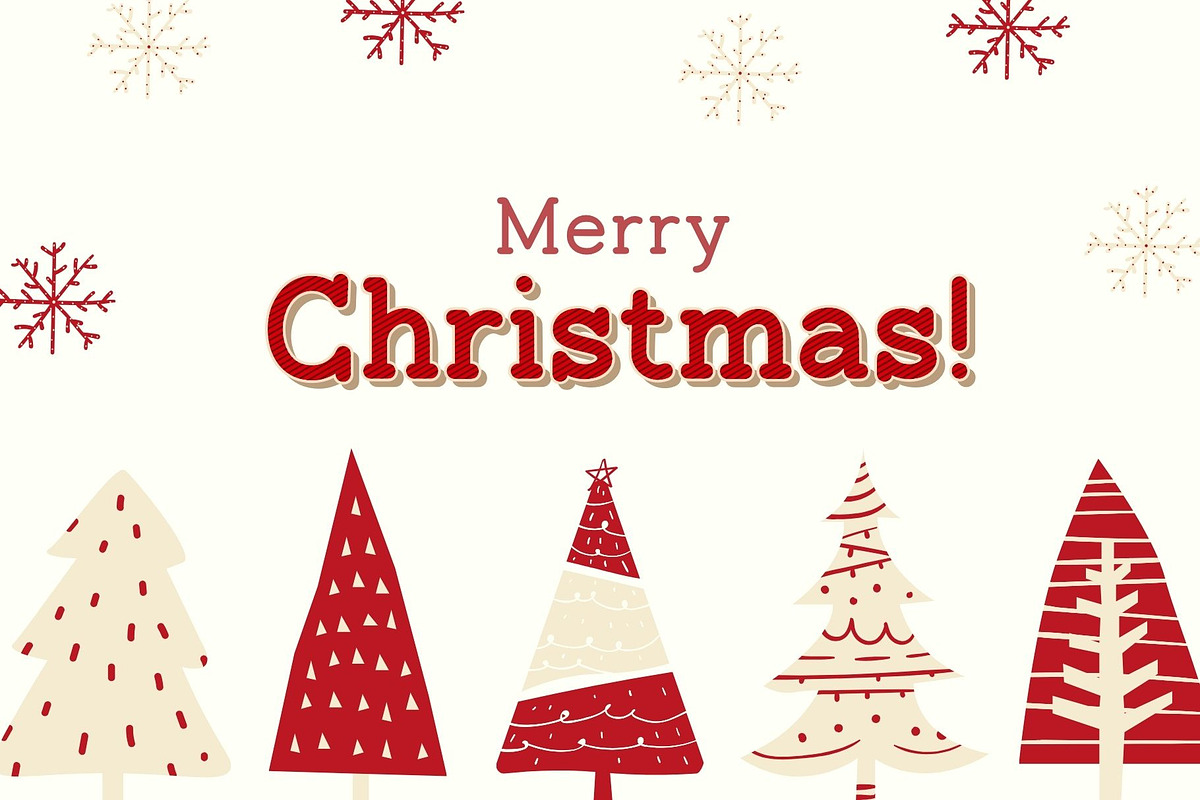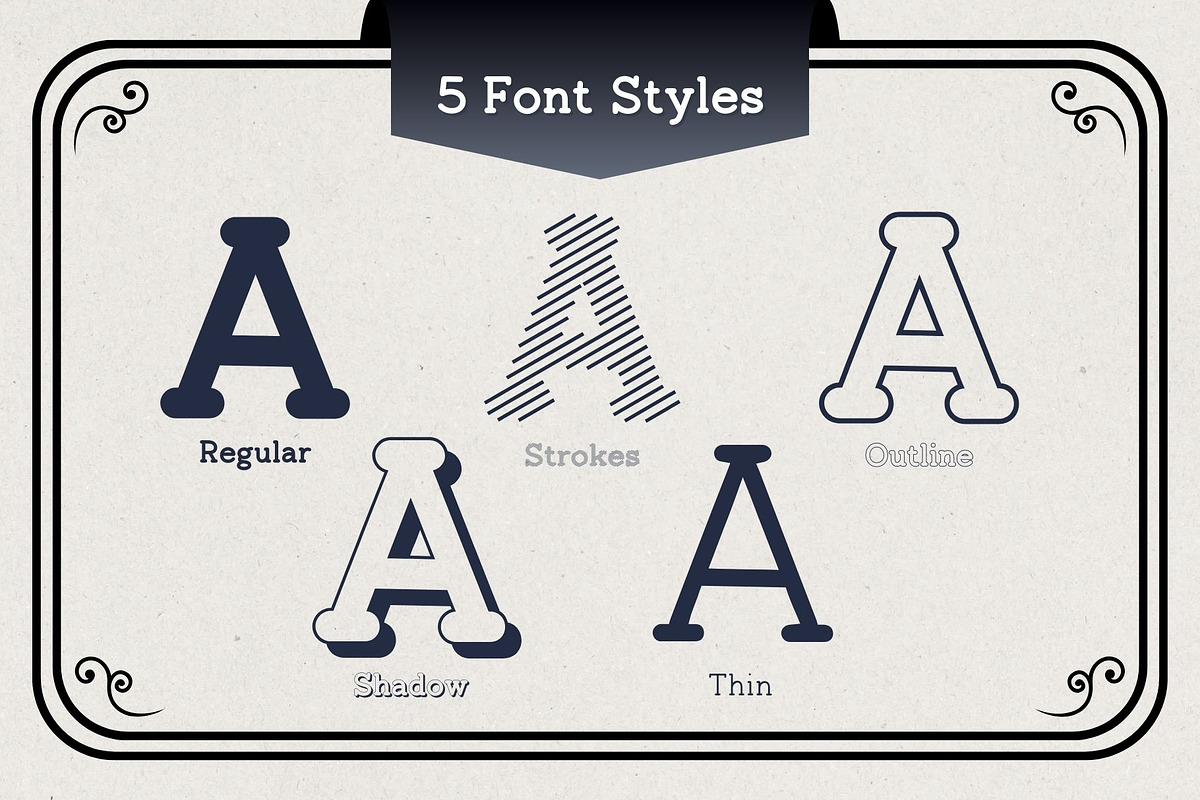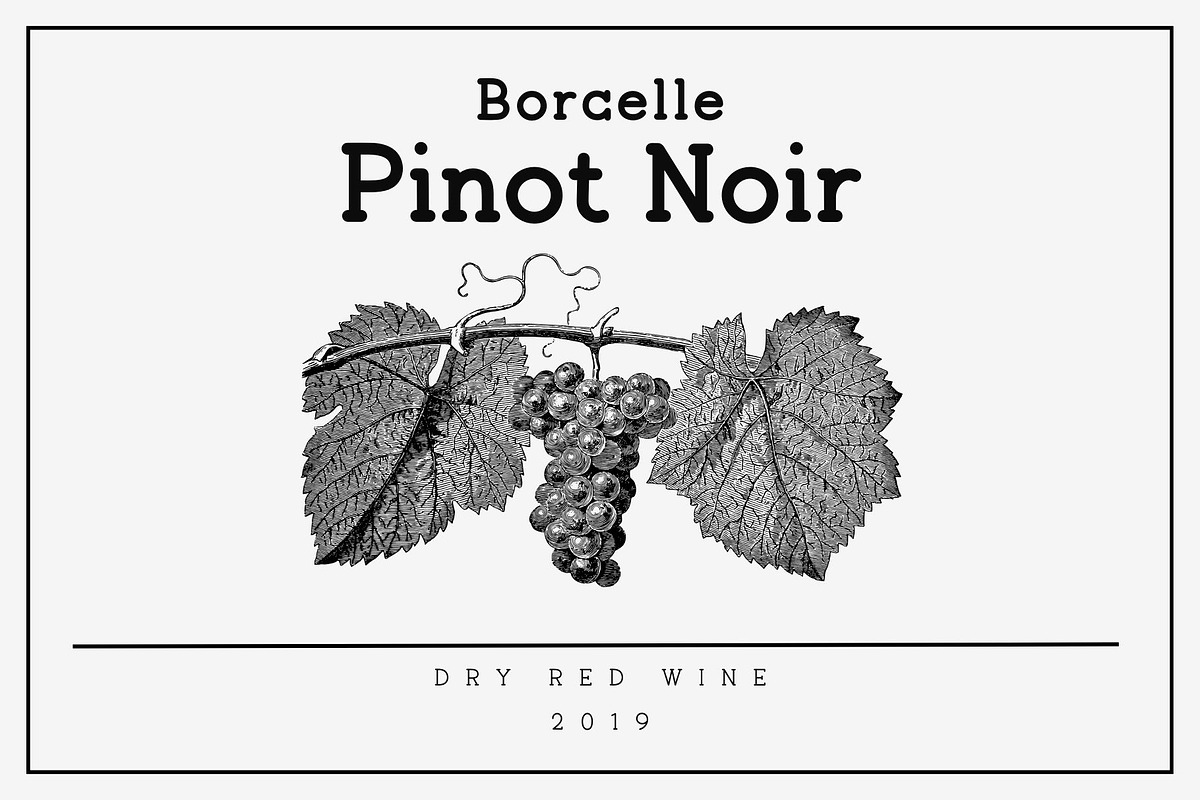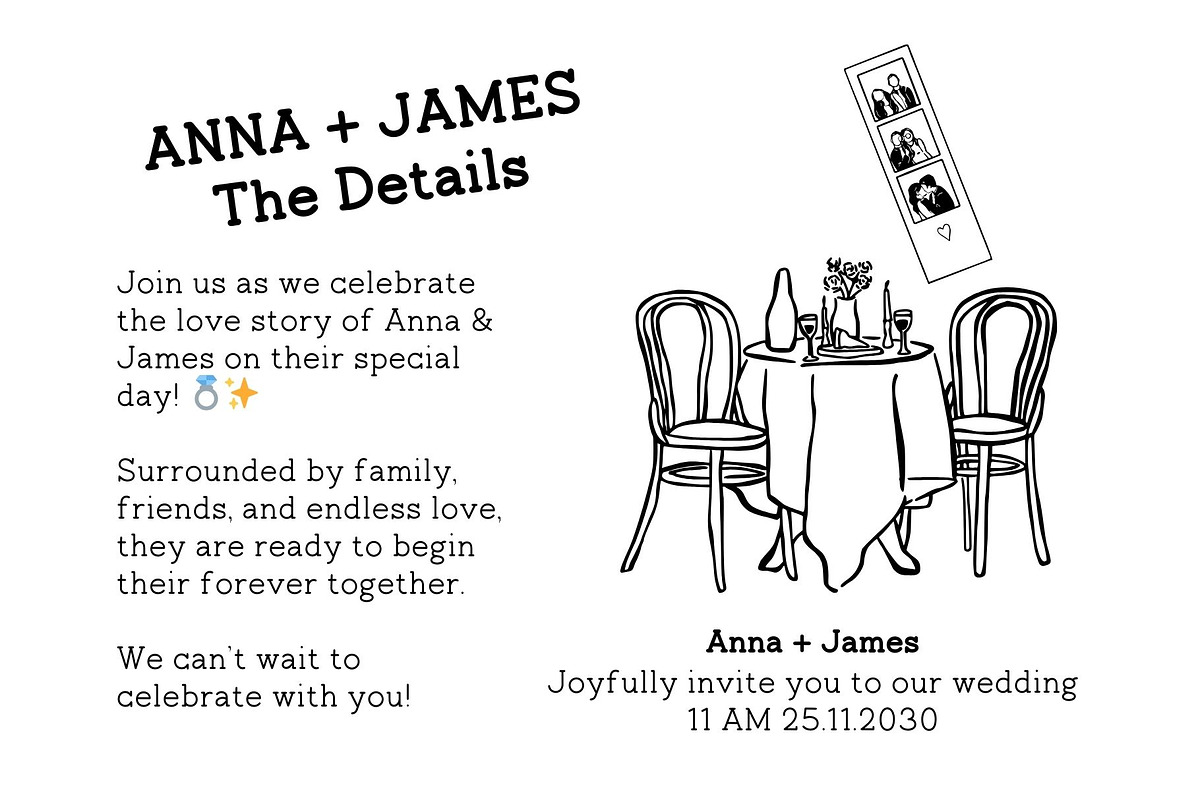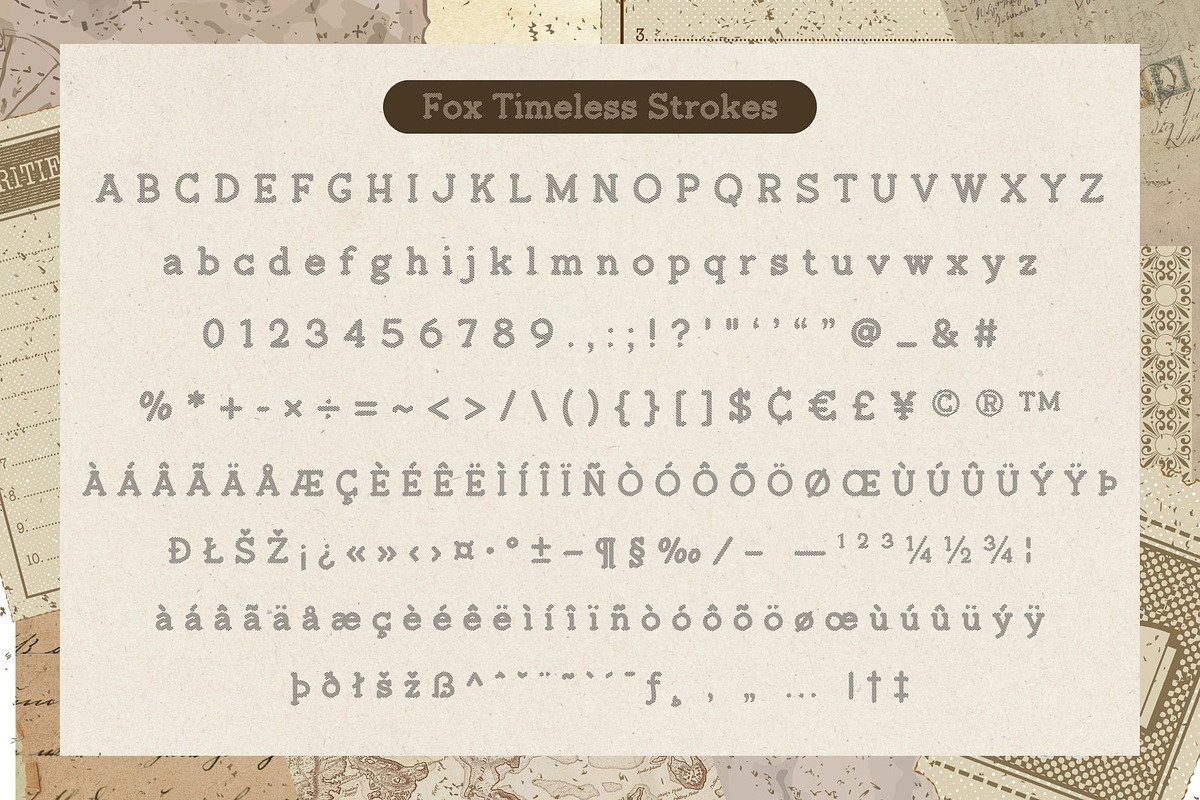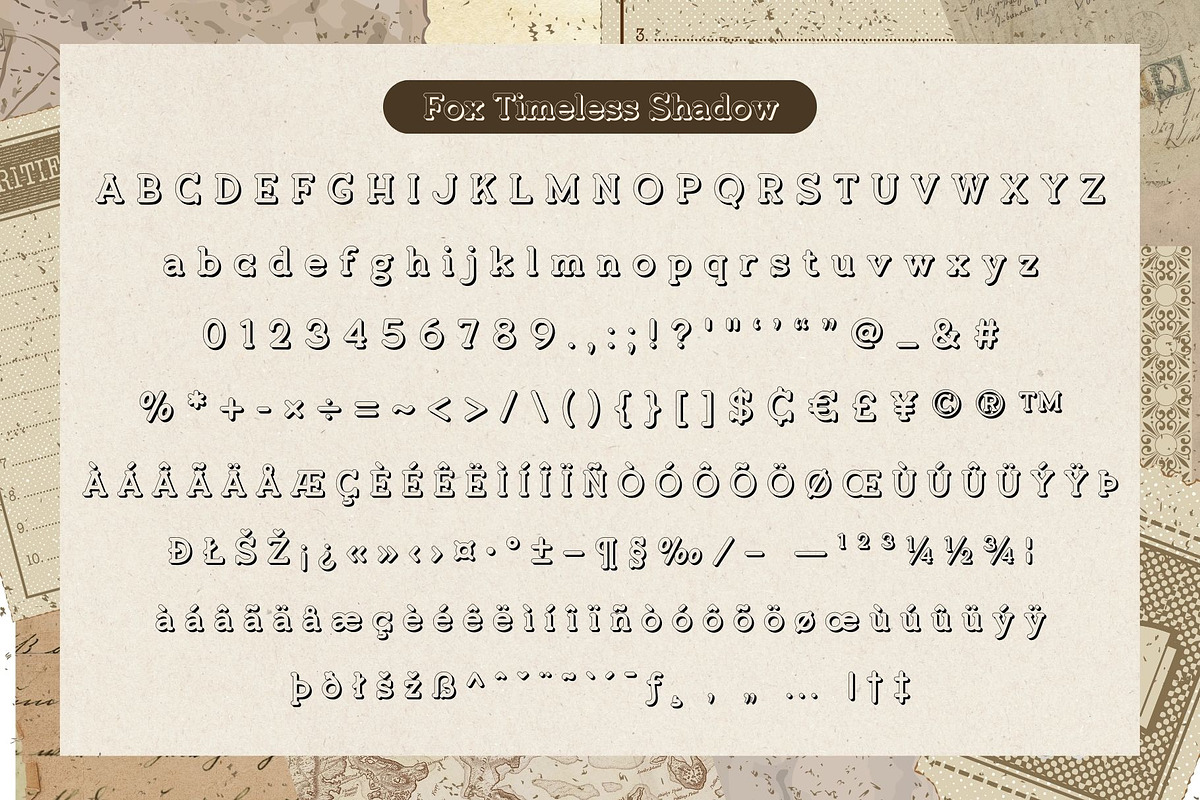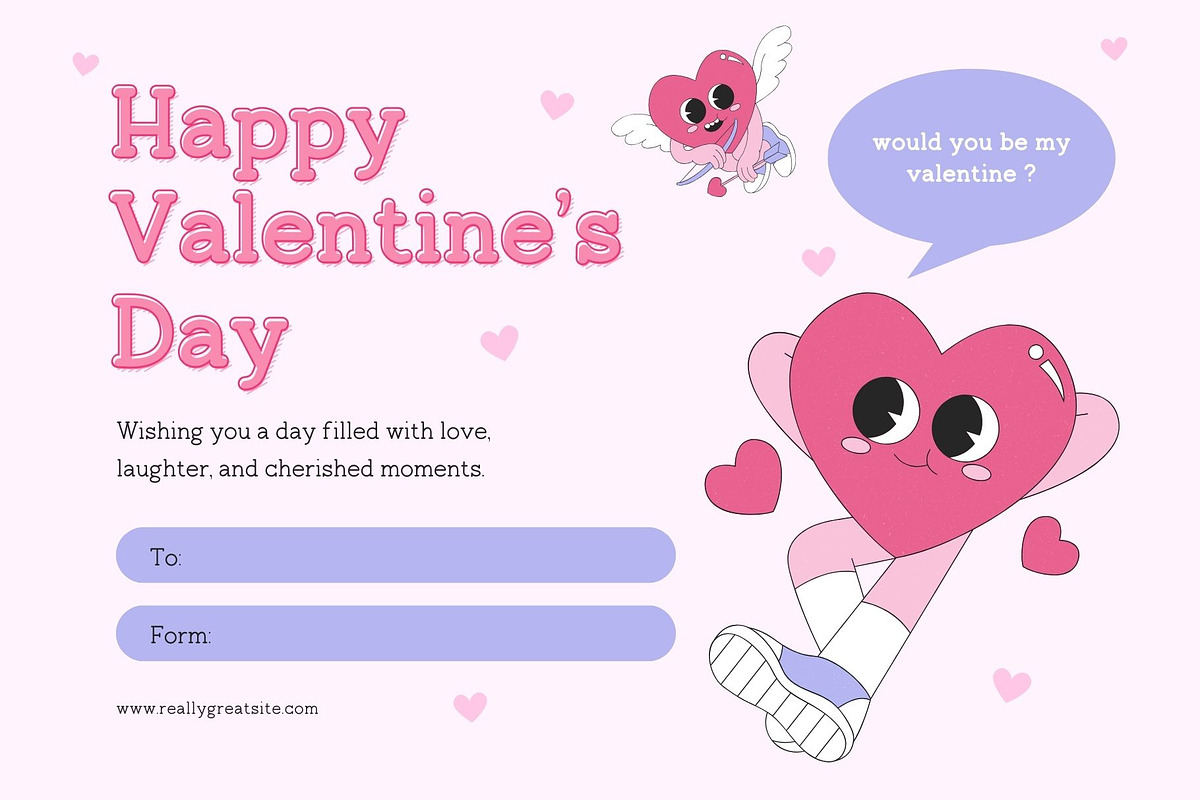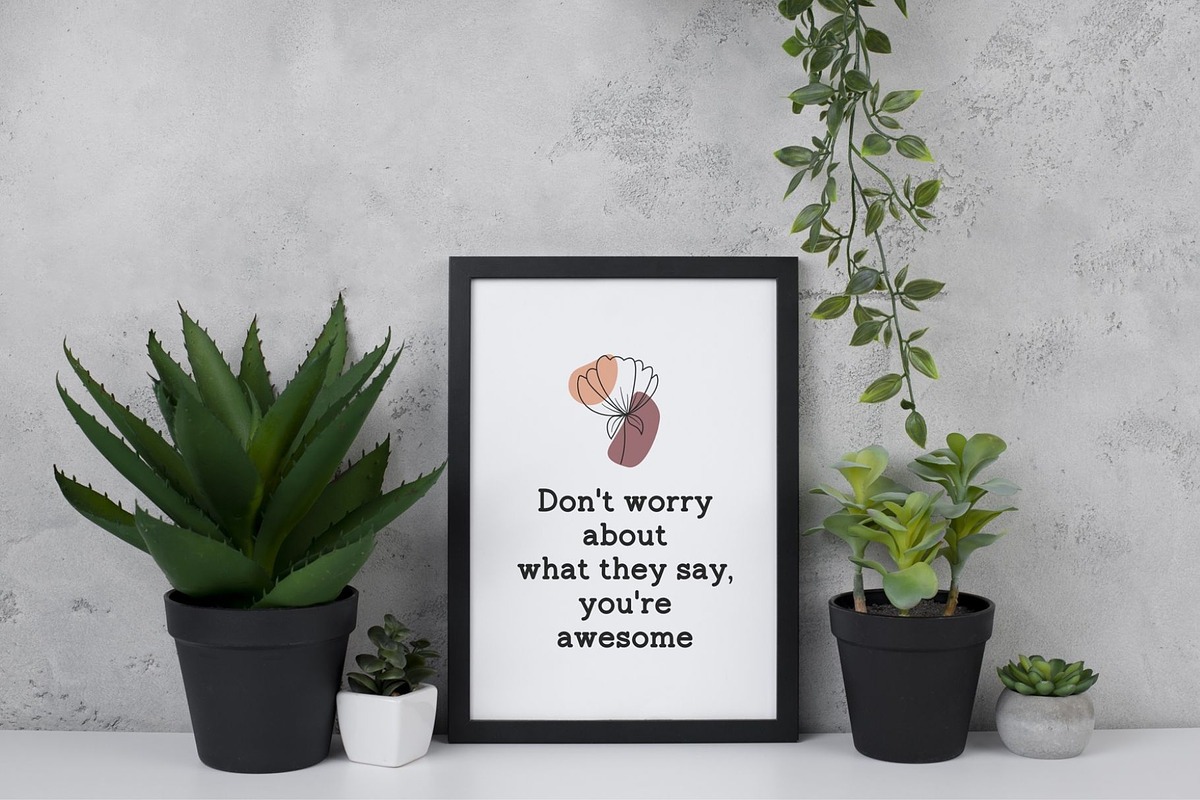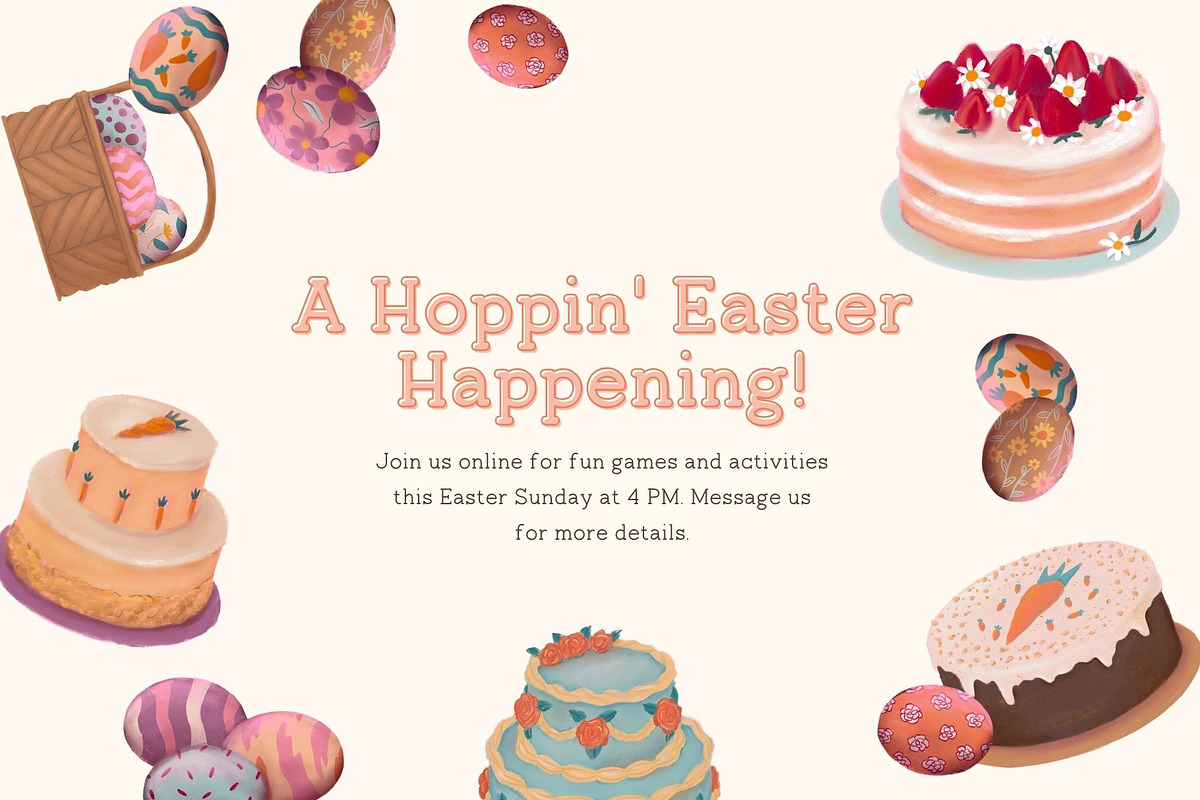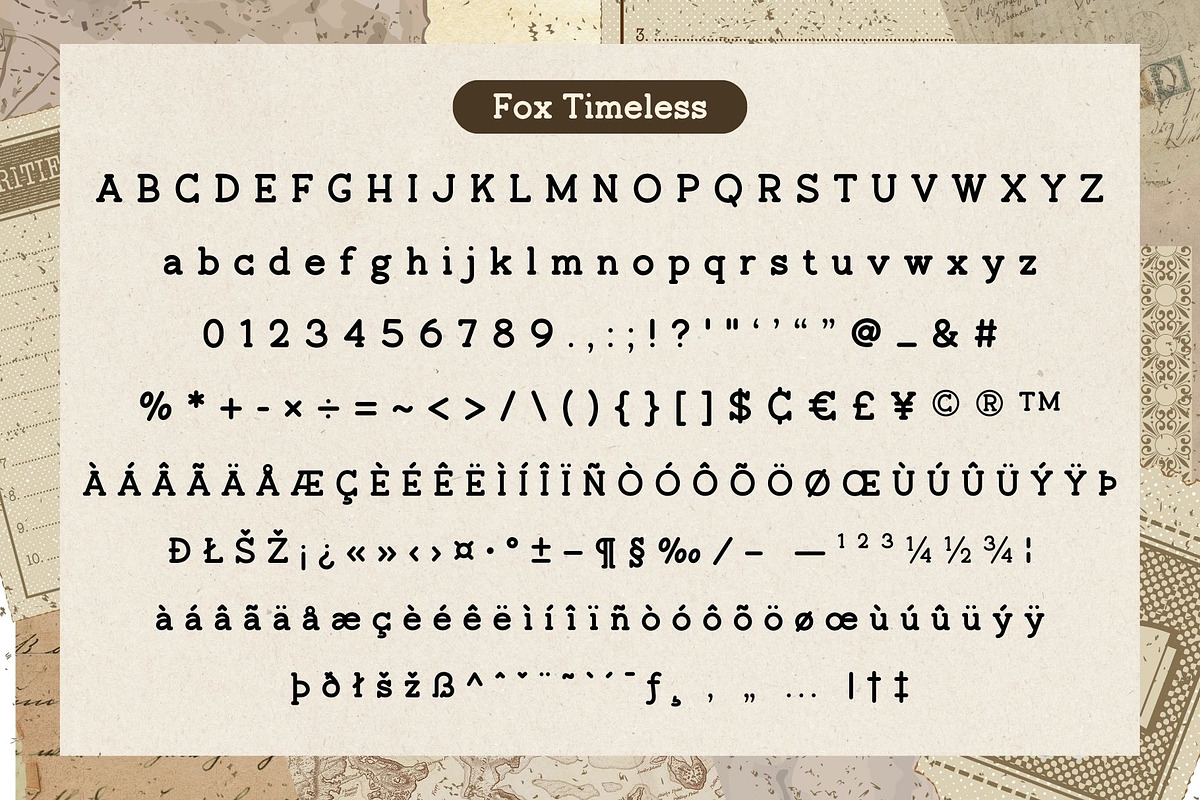
Fox Timeless 5 Font Styles
Fox Timeless is a beautifully crafted font that combines vintage charm with a modern touch. With five distinct styles—Regular, Shadow, Strokes, Outline, and Thin—this typeface offers versatility for a wide range of creative projects.
Designed for timeless elegance, Fox Timeless is perfect for invitations, branding, packaging, and editorial designs. Whether you need a bold and structured look or a delicate, refined style, this font family adapts effortlessly to your needs.